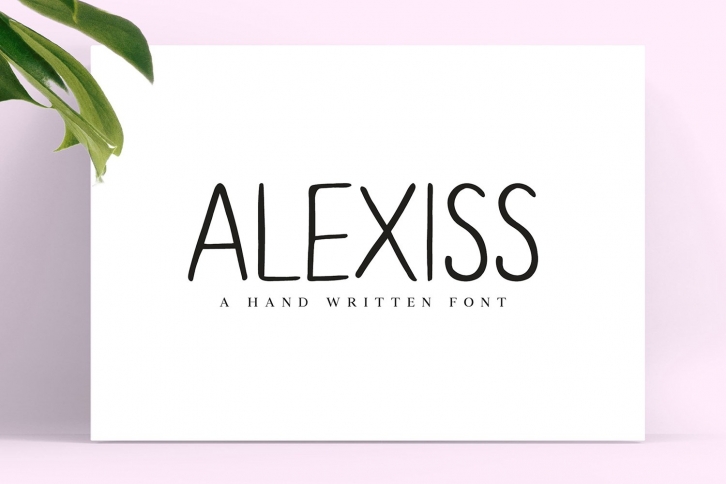
Alexiss Sans Serif is a beautiful font that was designed by Creativetacos. It's a great choice for designers and creatives who need such a font. It was released on January 23, 2022 and the file size is 6.8 MB. Alexiss Sans Serif may give a more youthful, expressive and casual look to your project. It is a very beautiful, refined, elegant, and high-quality font.